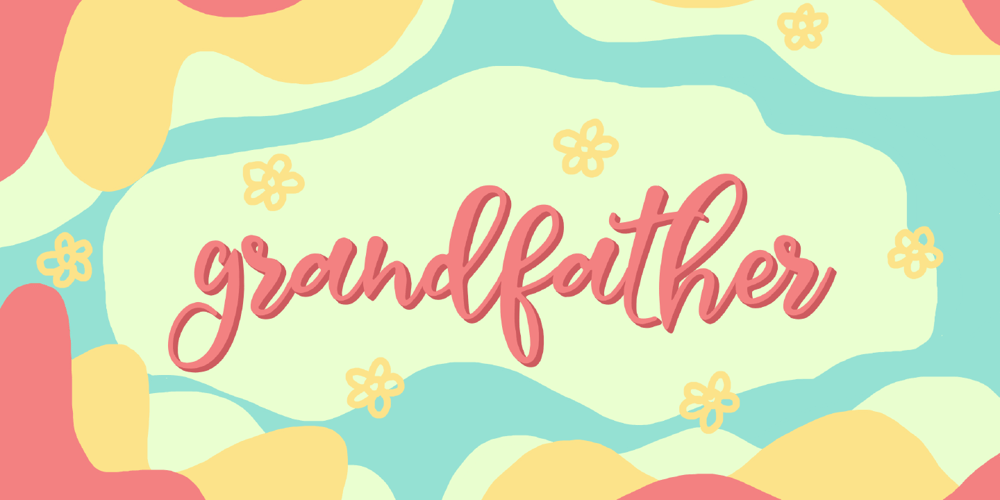
Grandfather 40 s Font Family was designed by Khair Unnas and published by Khaiuns. Grandfather 40 s contains 1 styles and family package options. Introducing “Grandfather 40s,” a brush font that exudes elegance and a touch of affection. Crafted to convey beautiful messages like birthday wishes, profound expressions of love, and special inscriptions on wedding cards. Each brush stroke brings a classic and gentle ambiance, creating an atmosphere full of memories.With “Grandfather 40s,” every letter transforms into a work of art, as if handwritten with care and warmth by a wise grandfather in the 1940s. This font establishes an elegant and timeless mood, evoking nostalgia and tenderness in every usage. Ideal for adding a special touch to precious moments in life.Showcase the beauty and grace in every word with “Grandfather 40s,” a brush font that is not just letters but also beautiful stories to share with your loved ones.